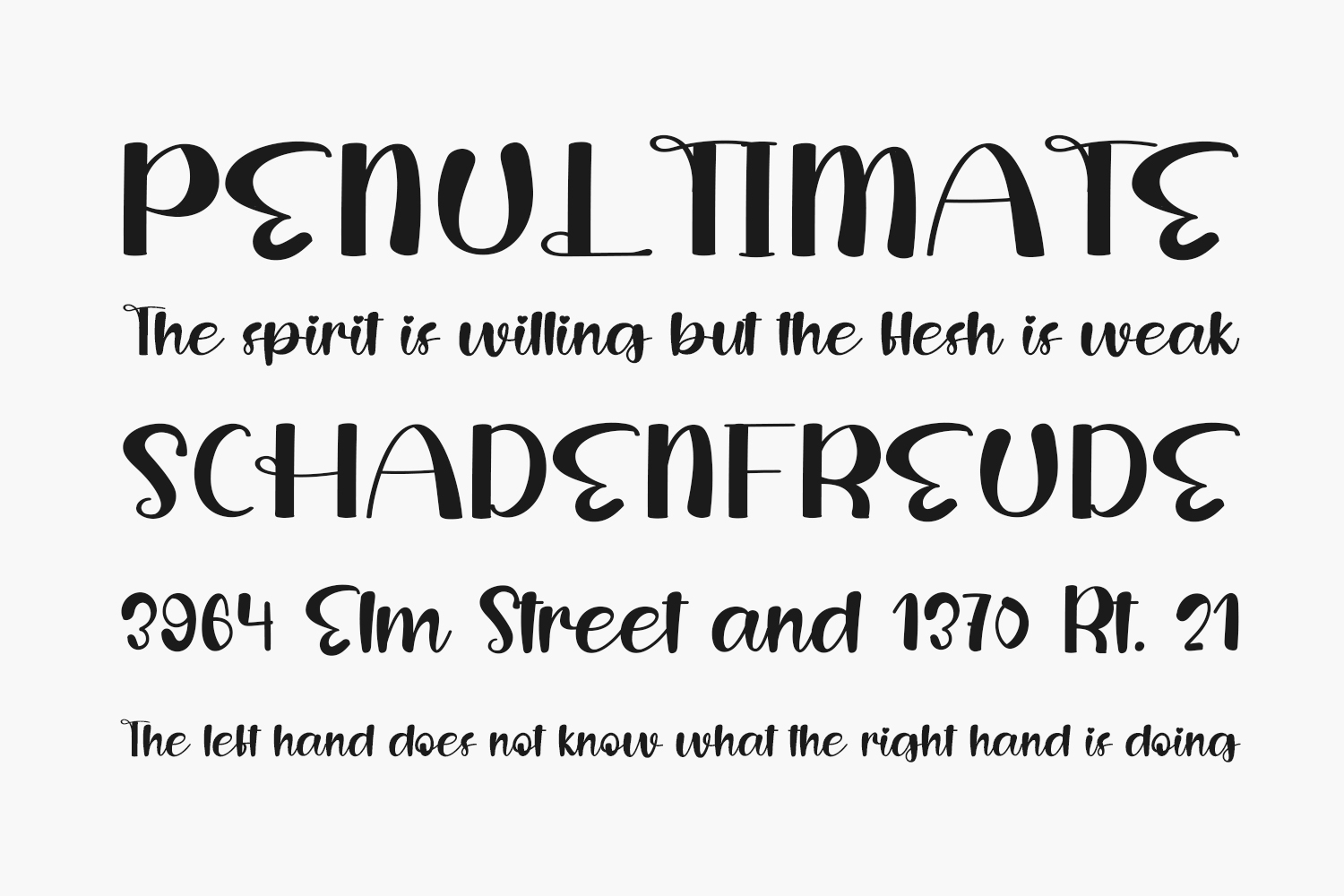
History Free Font is a delicate script font that exudes elegance. This font was particularly crafted for those who need a beautiful and refreshing look to their designs. History Free Font was designed by Cloud Studio and is free for personal use only. Please purchase the full version for commercial use.